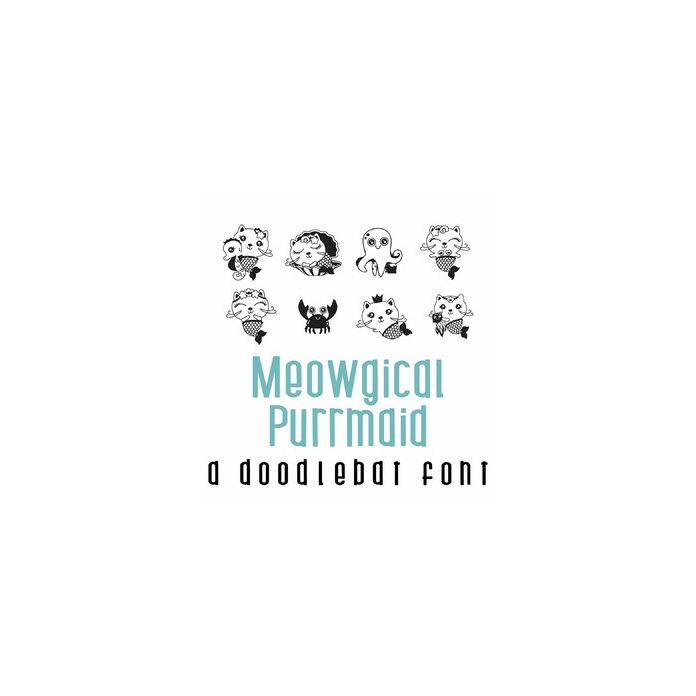
This adorable doodlebat font features 26 purrmaids purr-fect for summer! Use this font to create fun cards, crafts, gifts, decor, parties, planner stickers, scrap book pages and more!